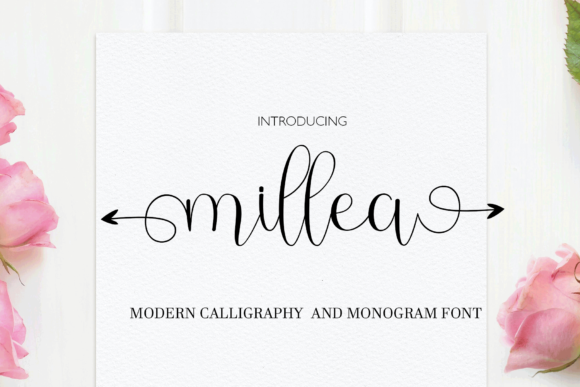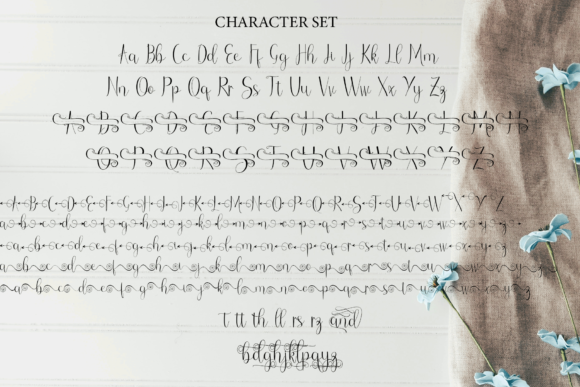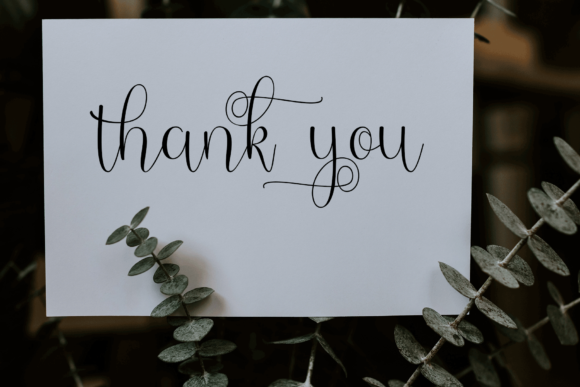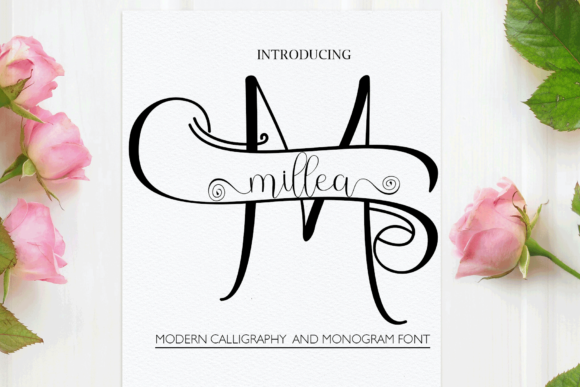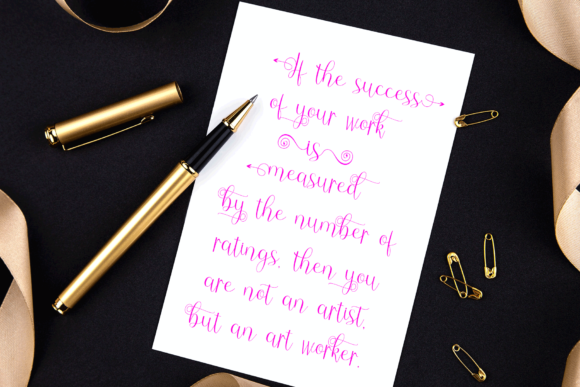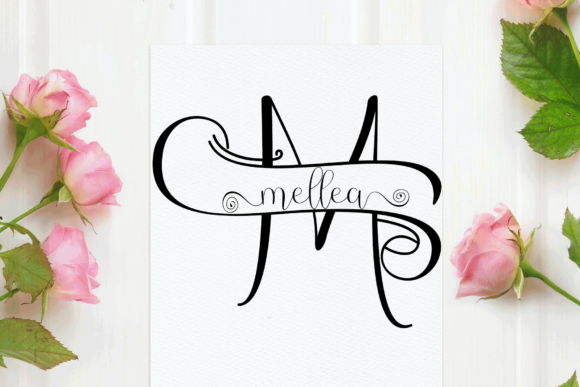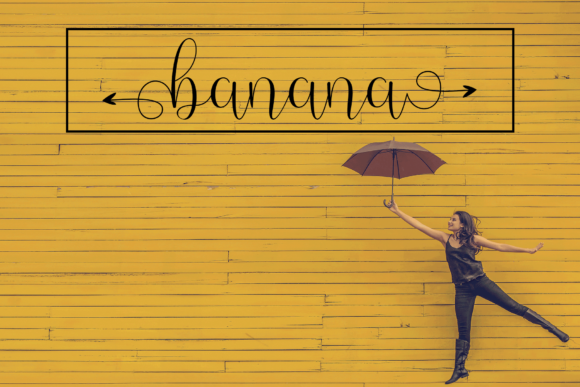
Millea Font
About Millea Font
Millea is a sweet and soft handwritten font! It features a varying baseline, smooth lines, gorgeous glyphs and stunning alternates. This font is perfect for quotes, clothing designs, websites, branding, children’s designs, blogs, logos, invitations, and more!